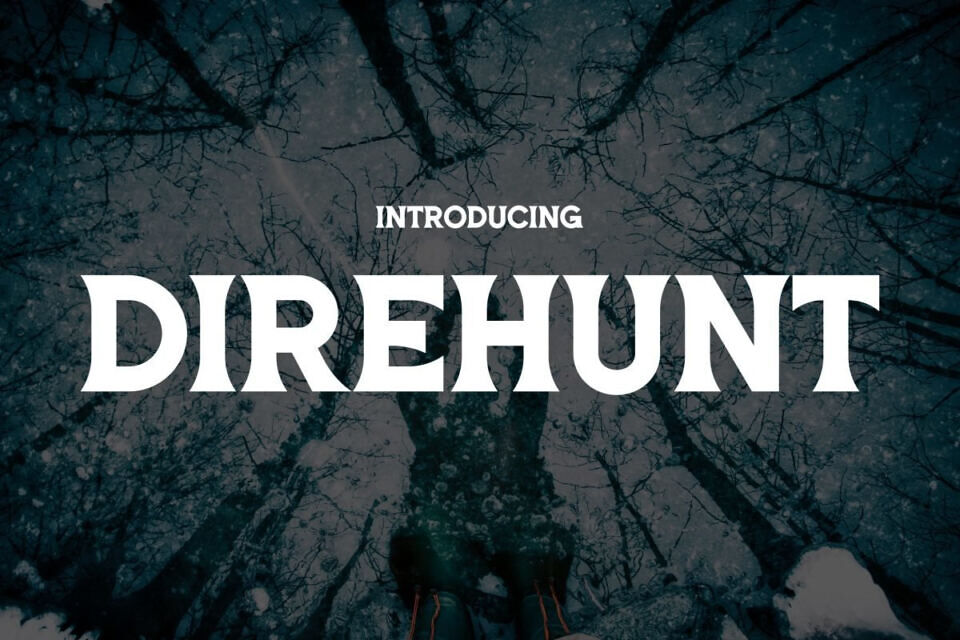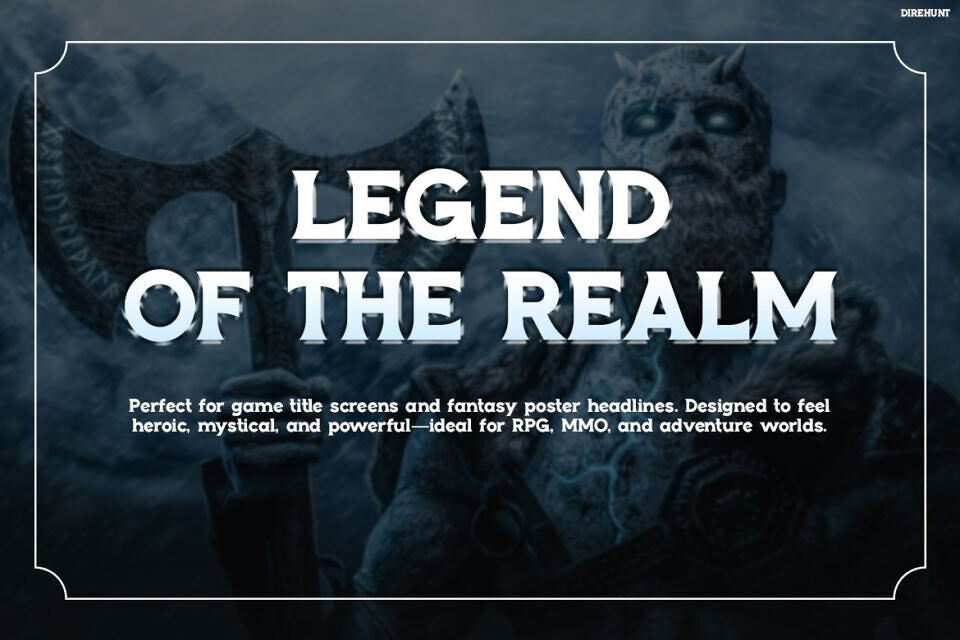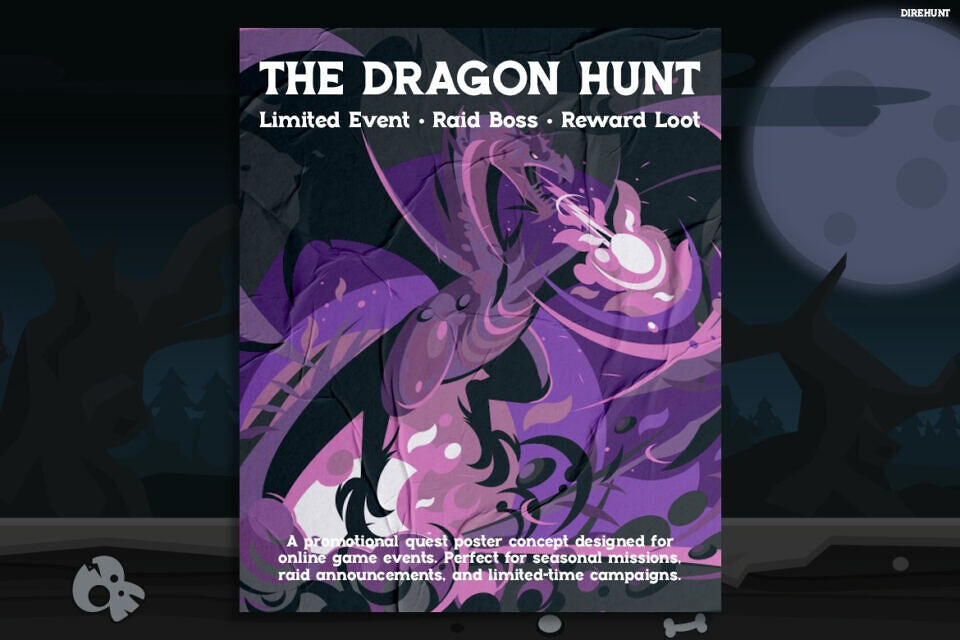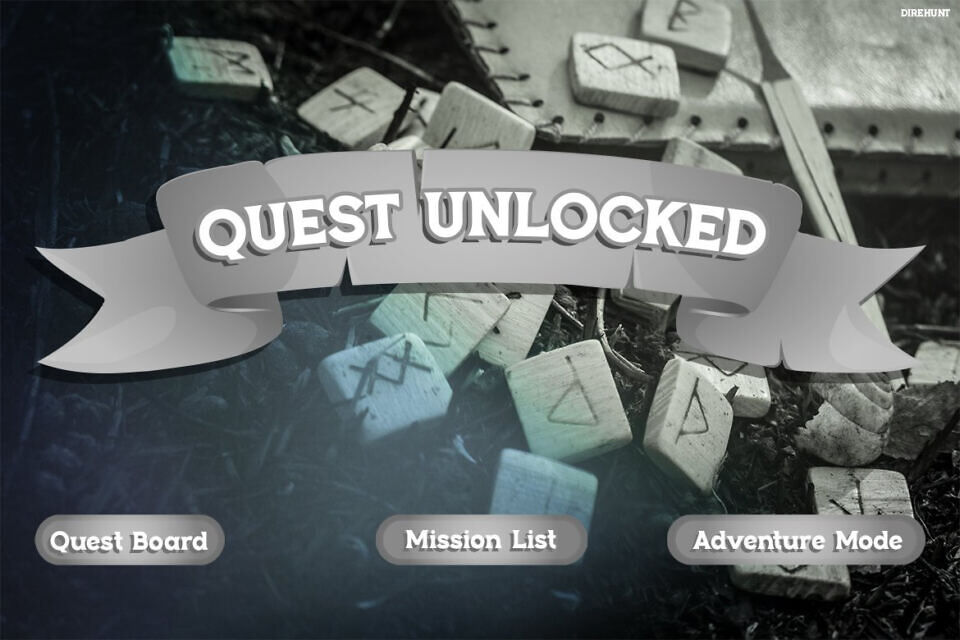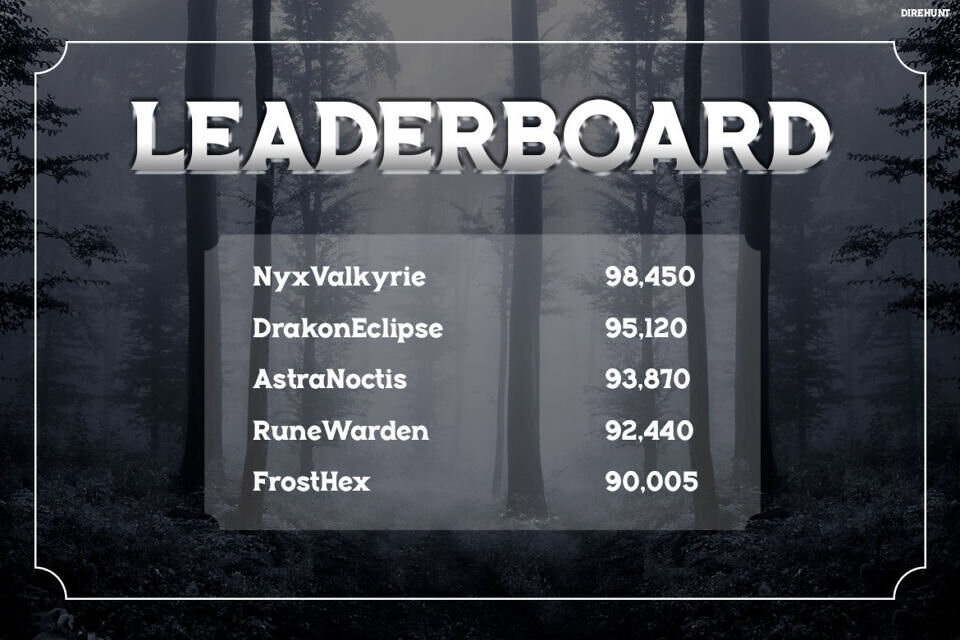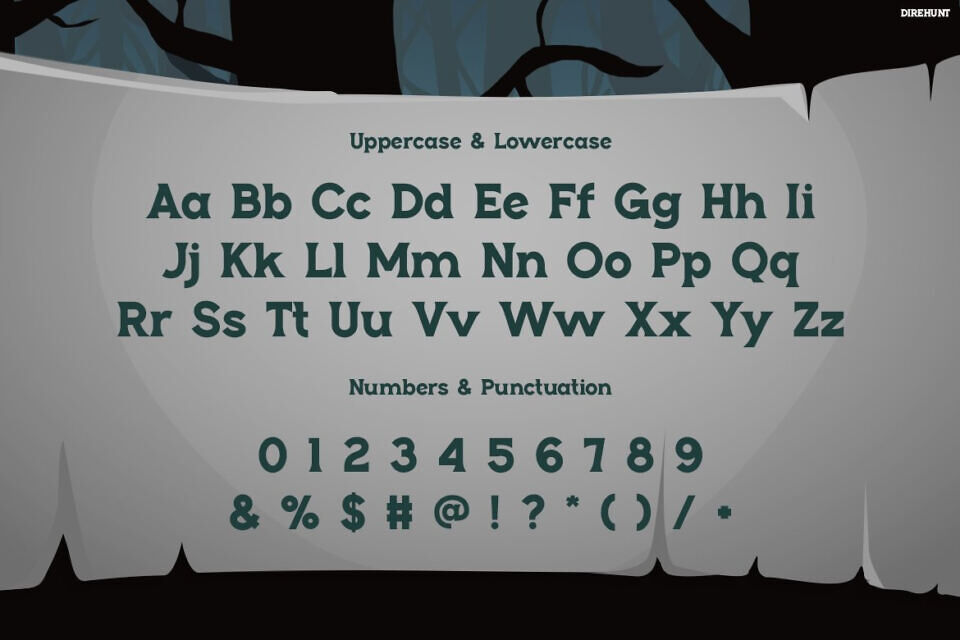
Direhunt delivers a bold, atmospheric typeface crafted for immersive fantasy worlds and high-impact gaming visuals. Moreover, its sharp serif edges and mystical curves create a dramatic medieval tone that feels both powerful and refined.
In addition, the strong contrast enhances readability, so your titles and UI remain clear while still looking cinematic. As a result, this font not only captures attention instantly but also strengthens storytelling through its striking visual identity. Furthermore, with multilingual support across 67 languages, it ensures your designs reach a global audience effortlessly.